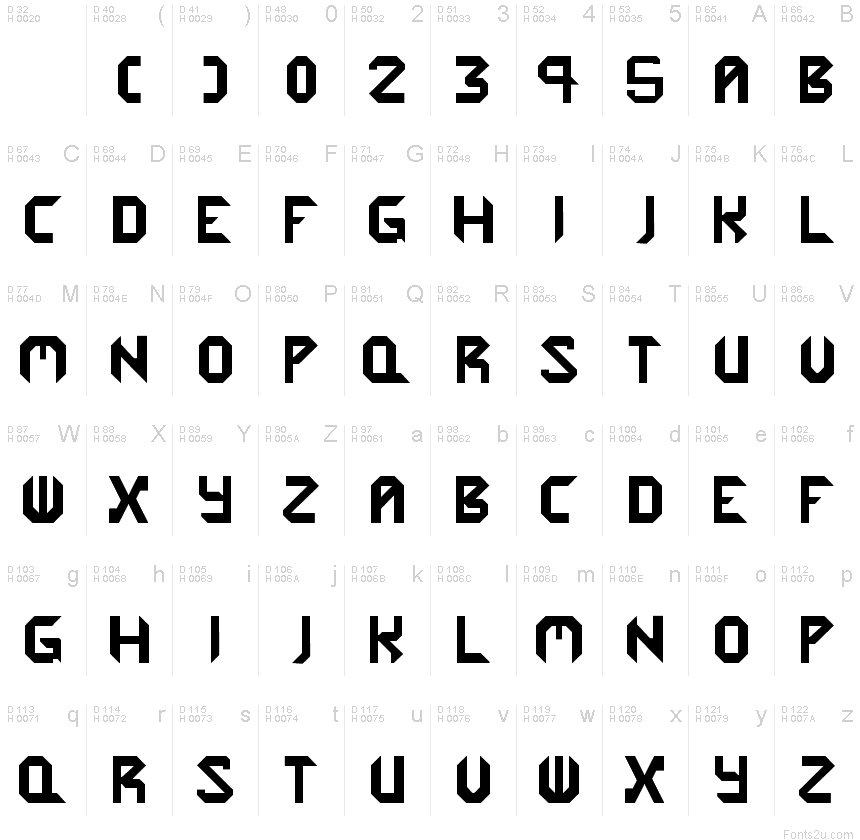
Cybergenics
Cybergenics font by SnatchSoft is a free techno display typeface with sharp, machine-cut geometry and a distinctly late‑90s digital vibe. Every letter feels carved from metal plating: straight edges, hard 45‑degree corners, and tight spacing that snaps words into a solid, modular block. It has a bold, mechanical rhythm that instantly suggests terminals, command lines, and neon‑lit hardware.
Using Cybergenics, headlines slam onto the screen like a boot‑up sequence-great for game titles, sci‑fi posters, hacker event flyers, synthwave album art, esports branding, and tech YouTube thumbnails. This free font works best in all‑caps at large sizes; pair it with a clean grotesque sans for small text to keep layouts readable while the main title does the heavy visual lifting.